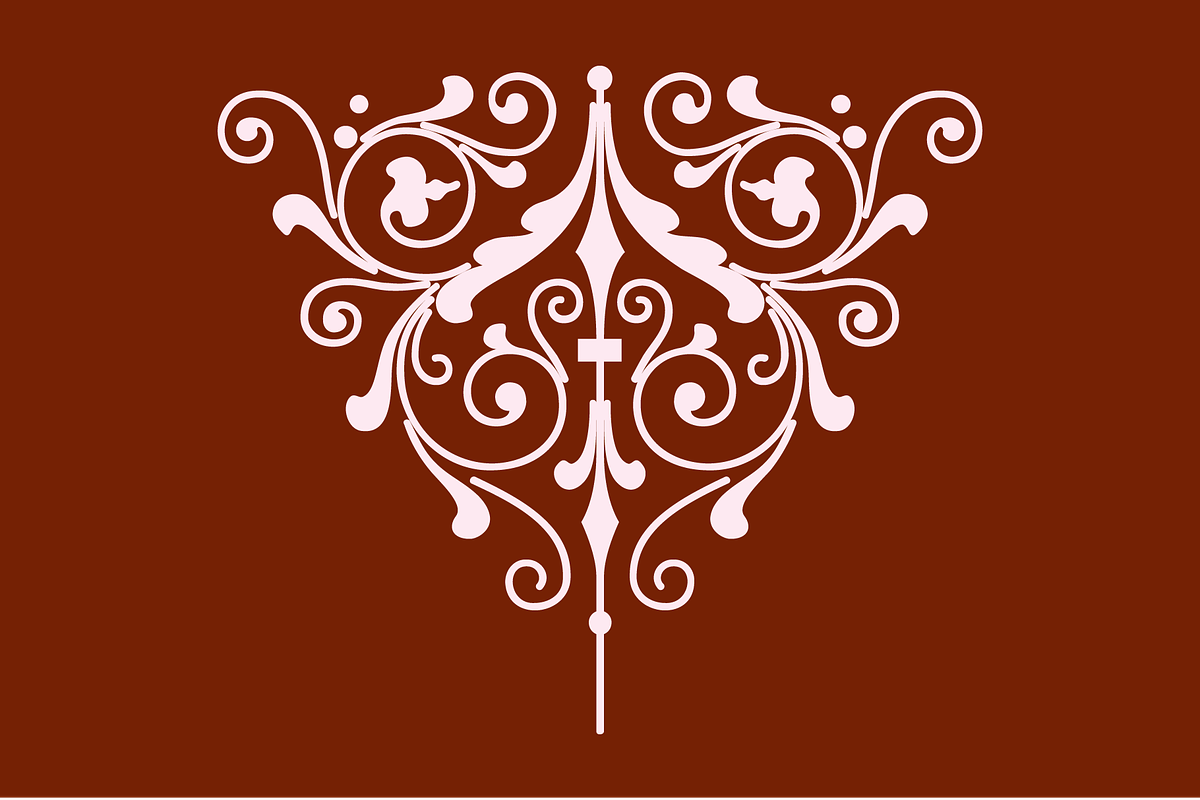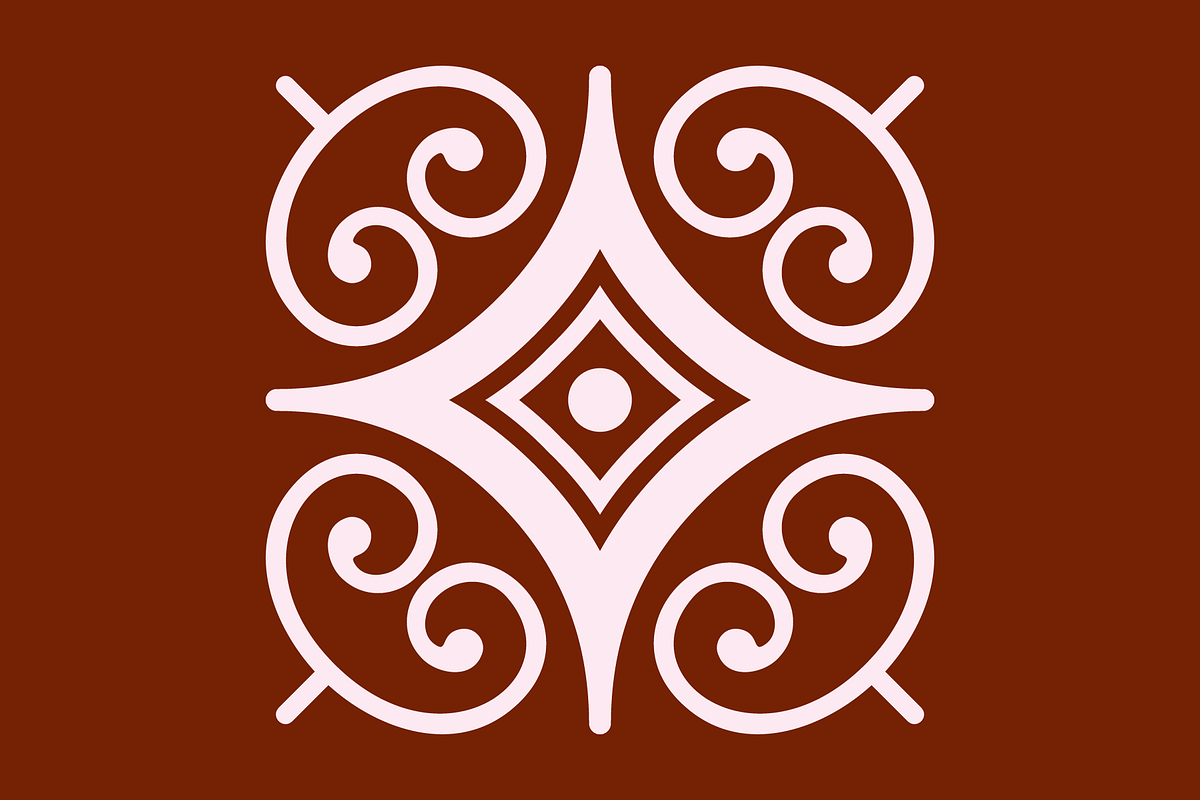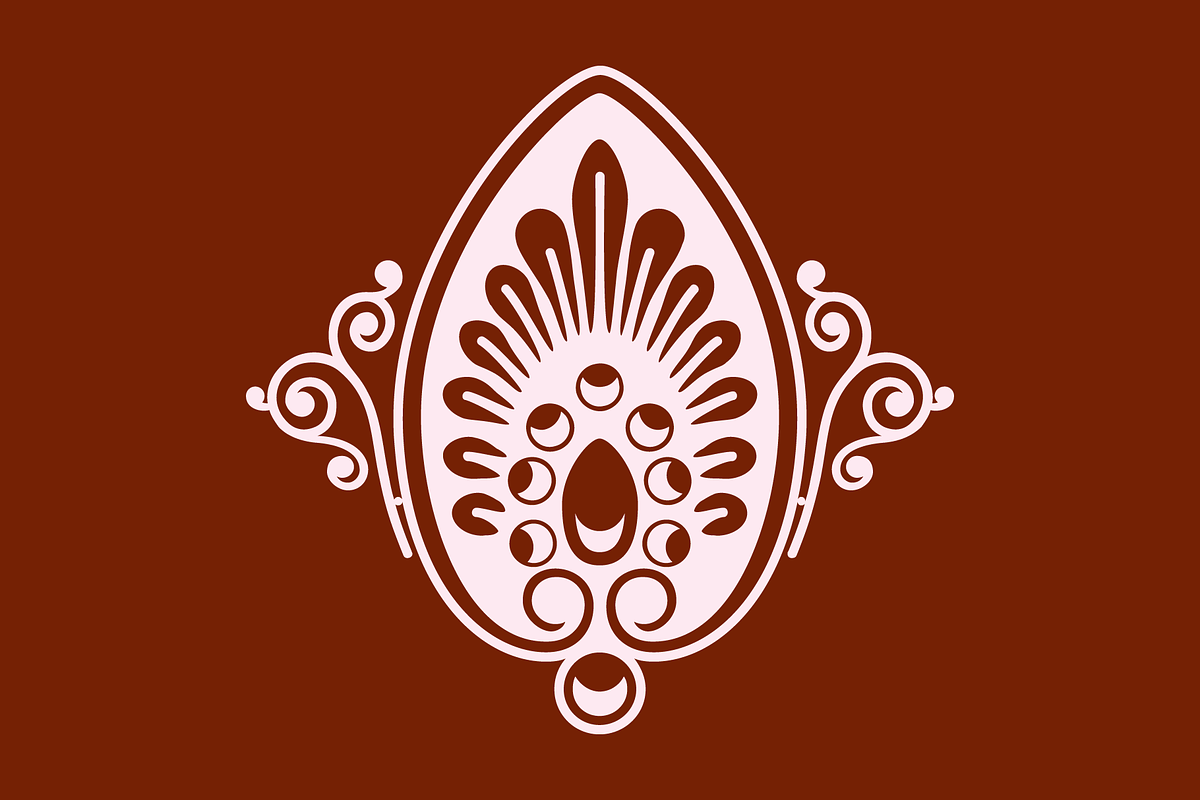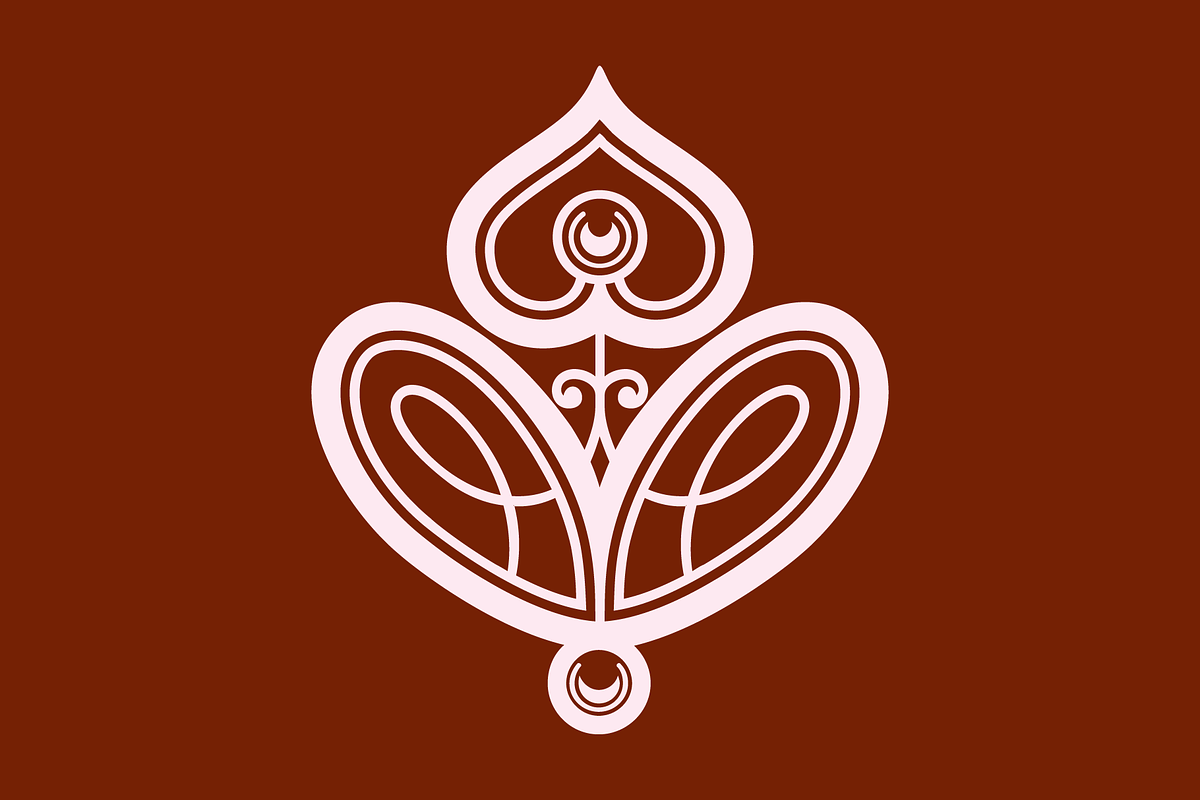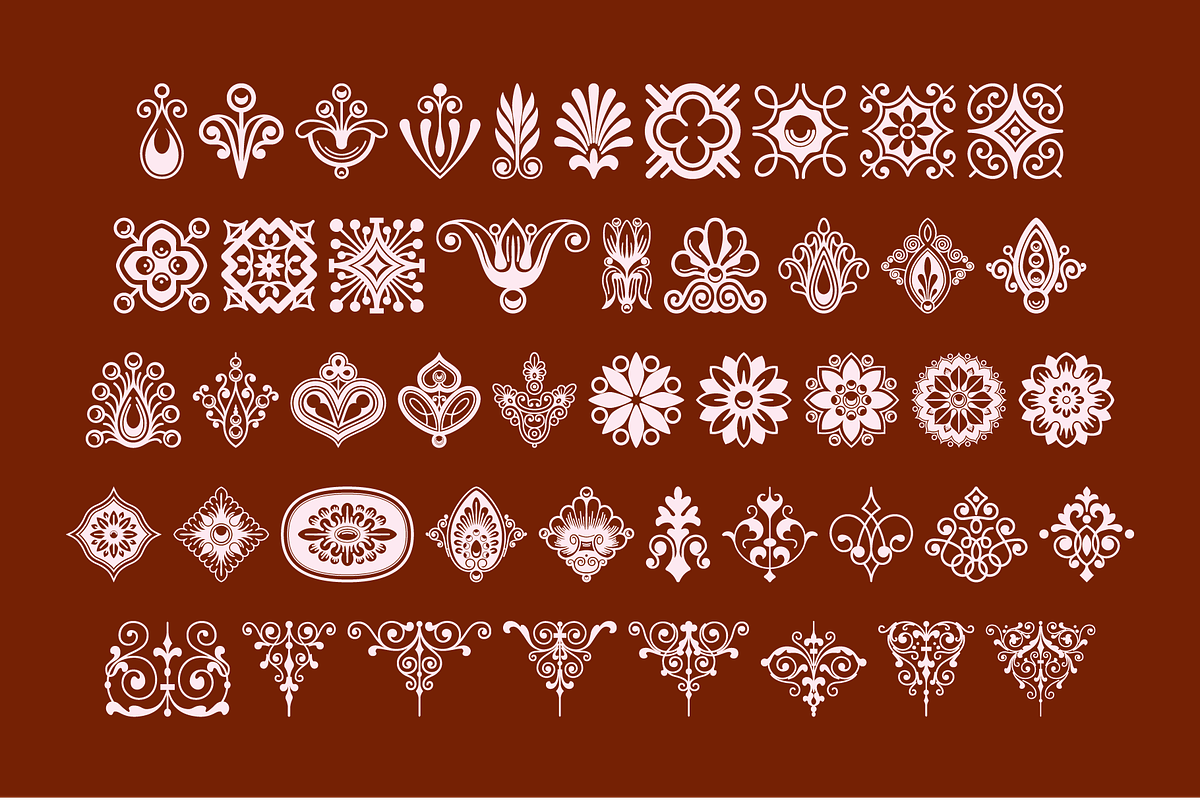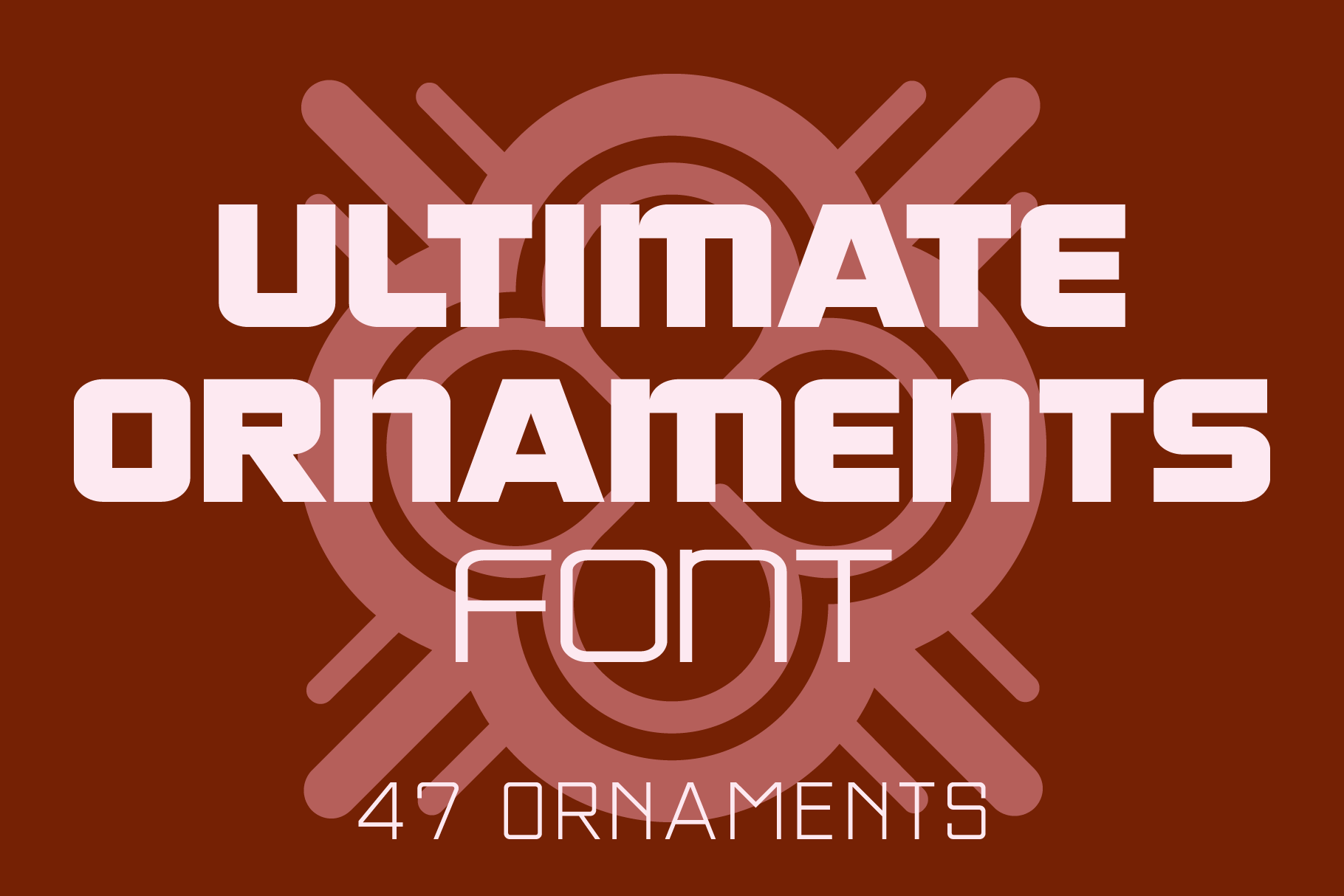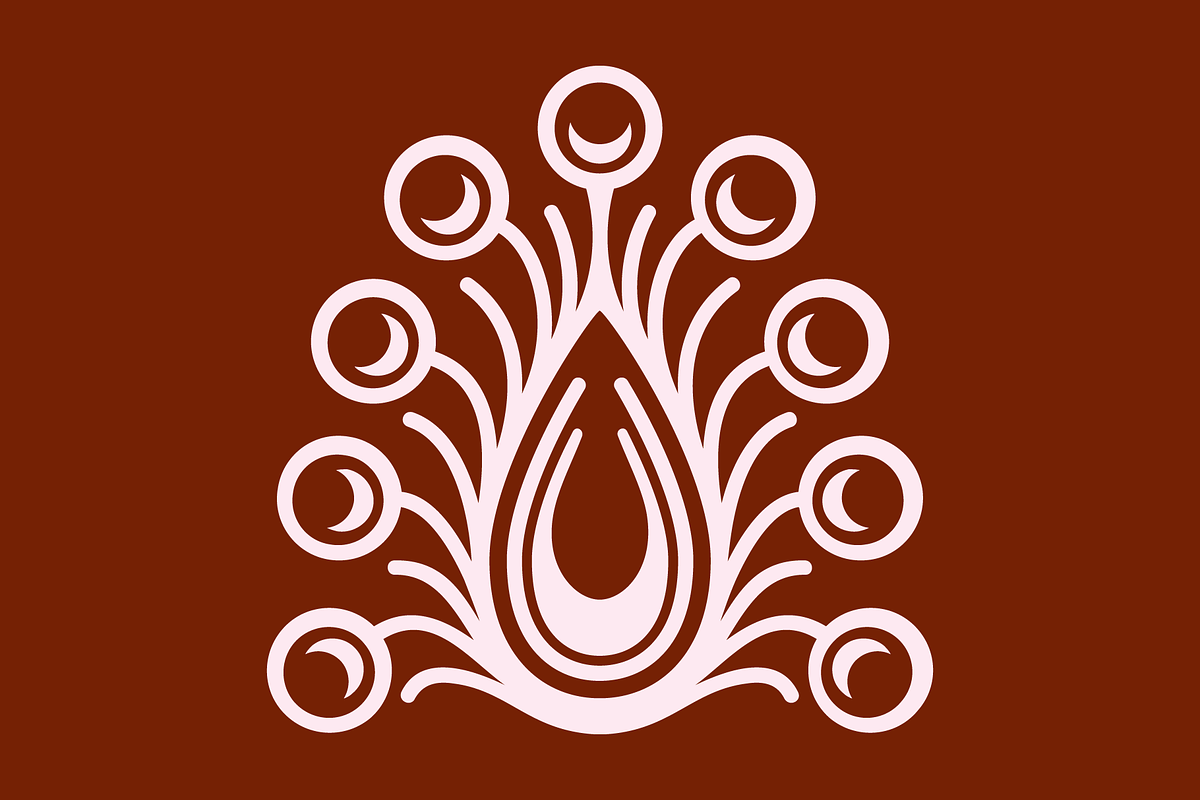
Ultimate Ornaments Font
Ultimate Ornaments was inspired by the decorative elements supplied by European type foundries and printing companies in the 18th and 19th centuries. There is an assortment of 47 ornaments all located under the character set keys.